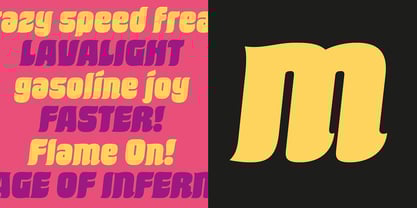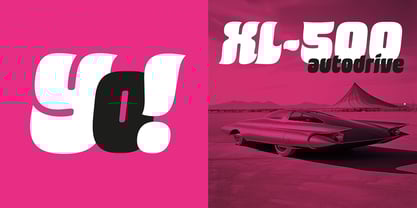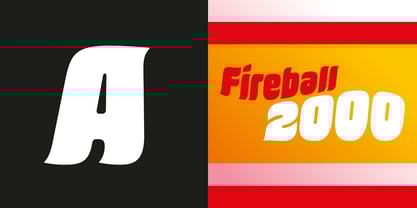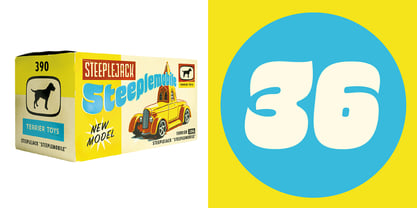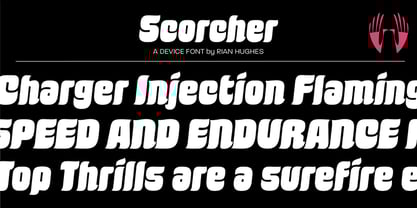
Scorcher
The Scorcher Font Family was designed by Rian Hughes and published by Device. Scorcher contains 1 styles.
Scorcher evokes the full-speed- ahead livery of stock car racing, the calligraphic flow of squeezed toothpaste, or an inferno of dancing flames.
Technically it is a monoline italic with flicked terminals and a tight letter-fit. Intended for headline use, it is shown to best advantage in punchy logos, short sentences and catchphrases. Alternate versions of the Q allow the tail to be extended under the following letters.
Designers: Rian Hughes